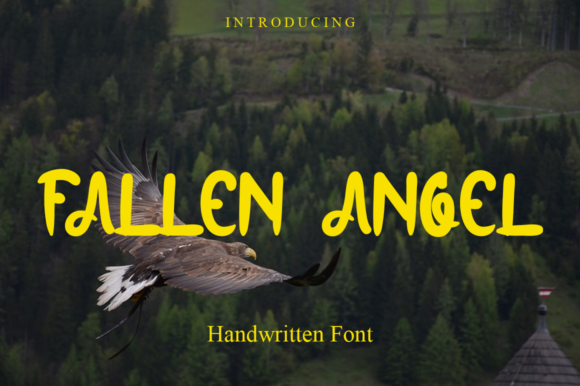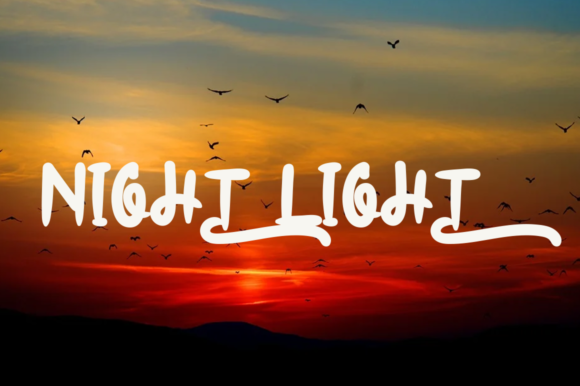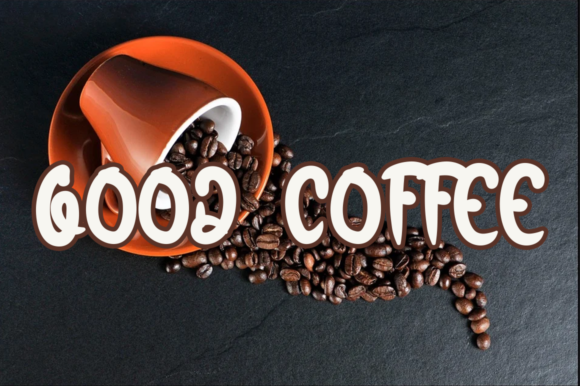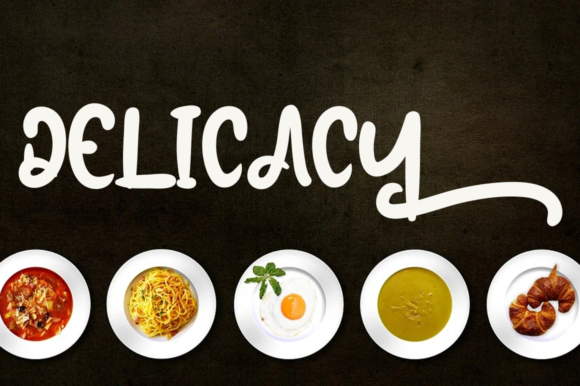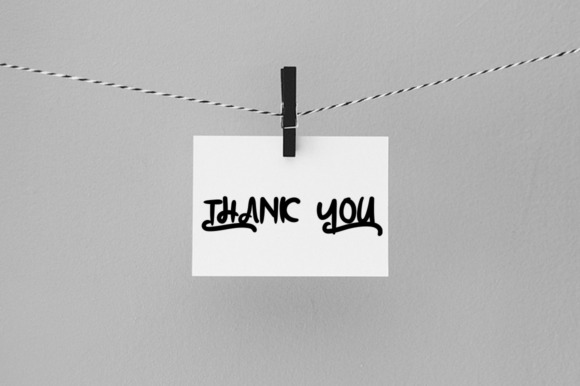
Fallen Angel Font
About Fallen Angel Font
Fallen Angel is a simple, thin and sweet paint brushed handwritten font. Incredibly versatile, this font fits a wide pool of designs, elevating them to the highest levels.